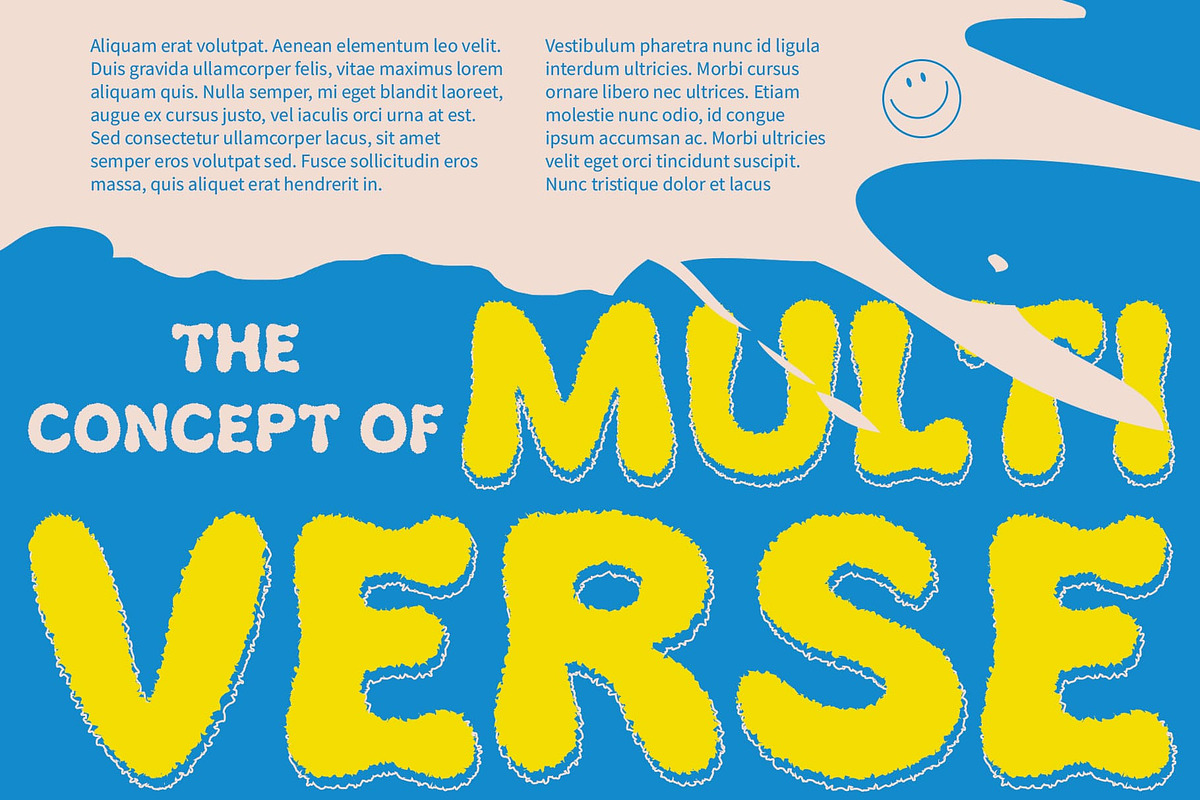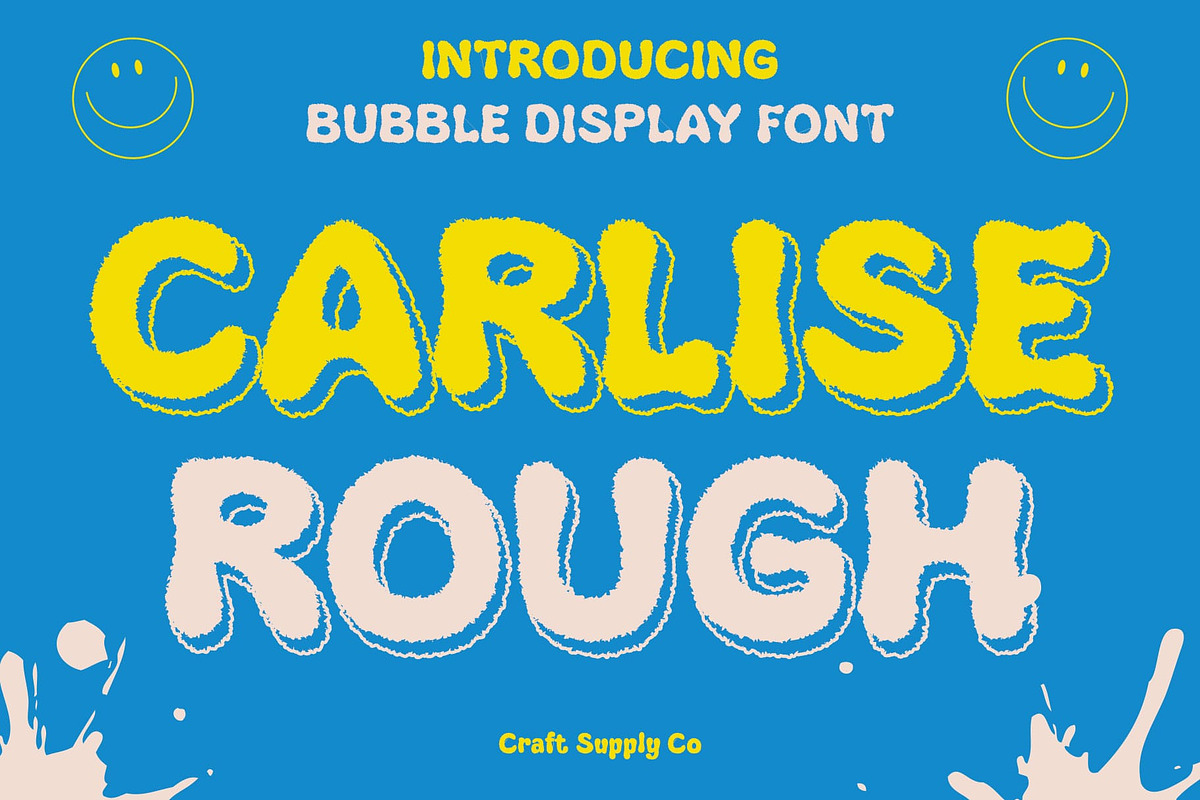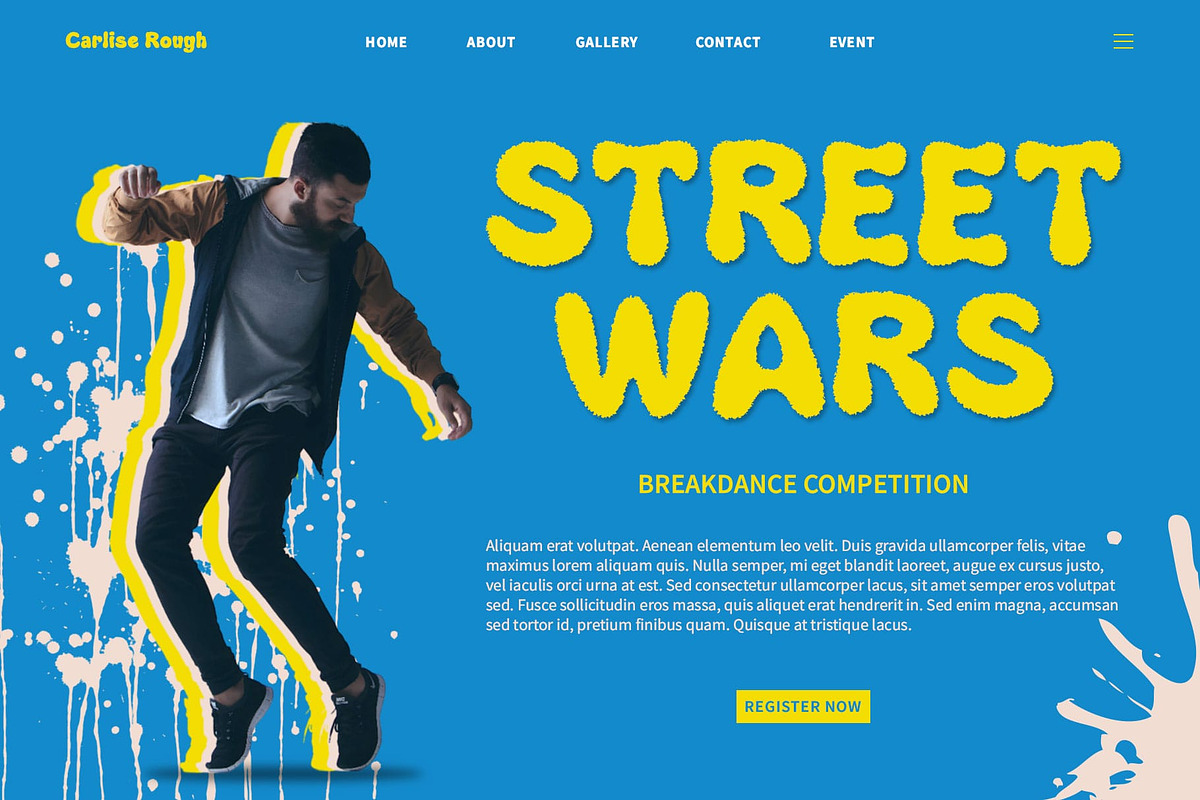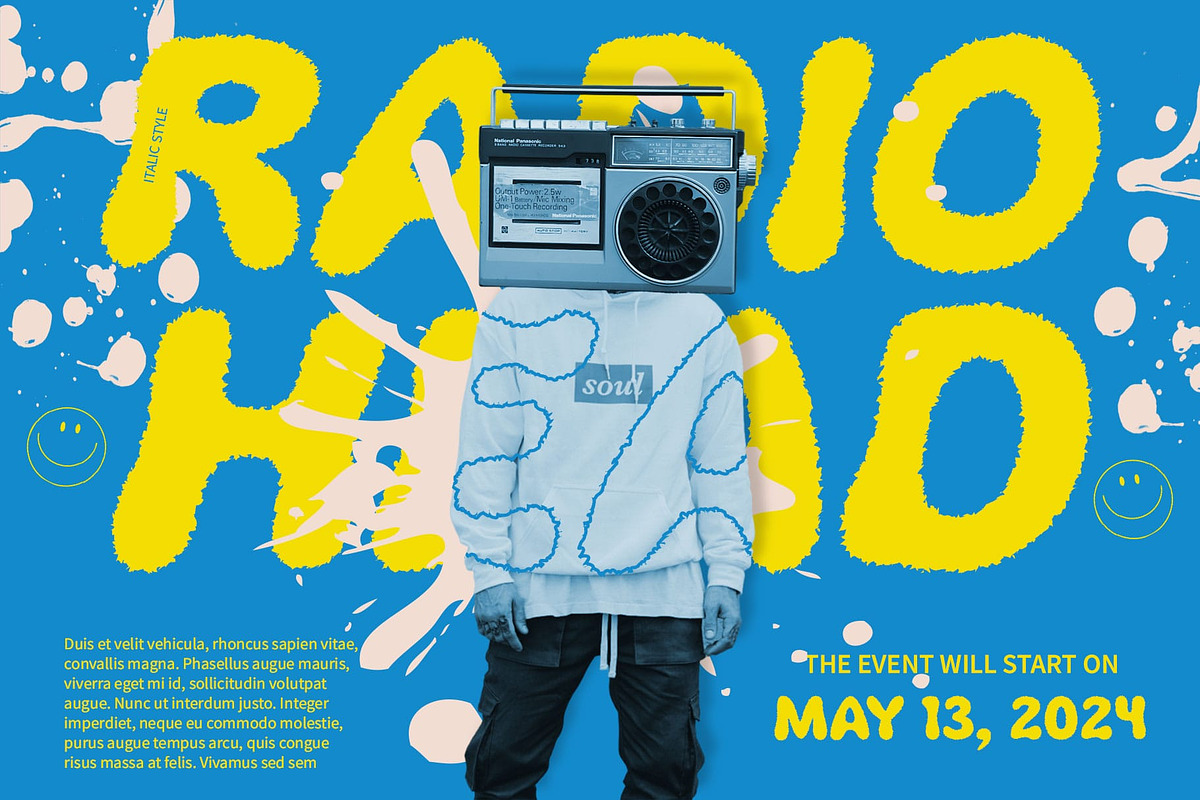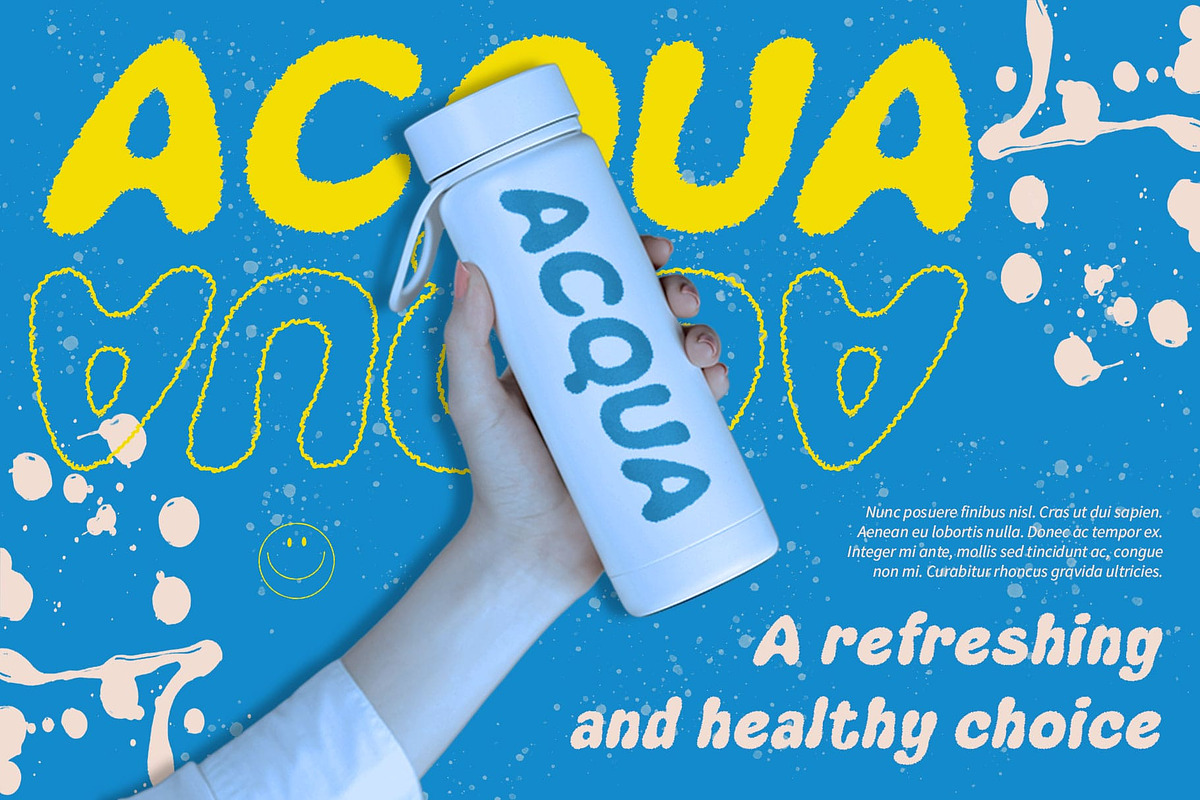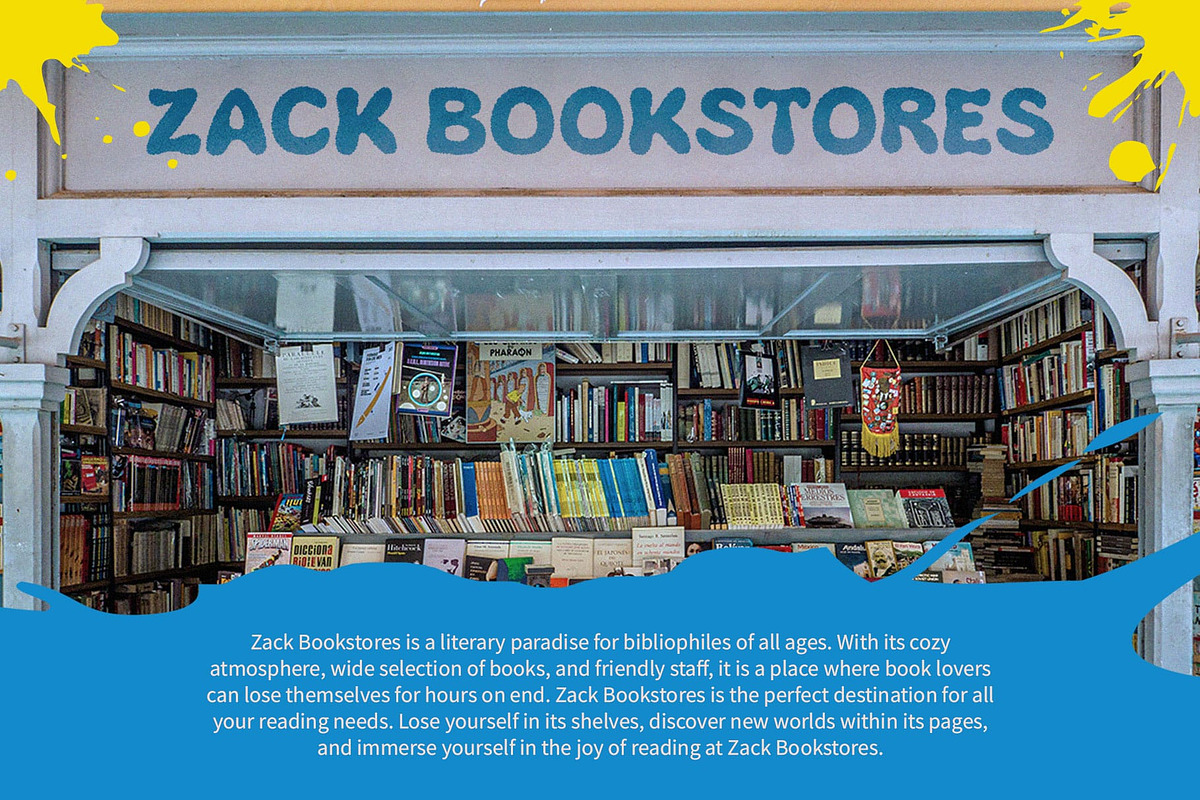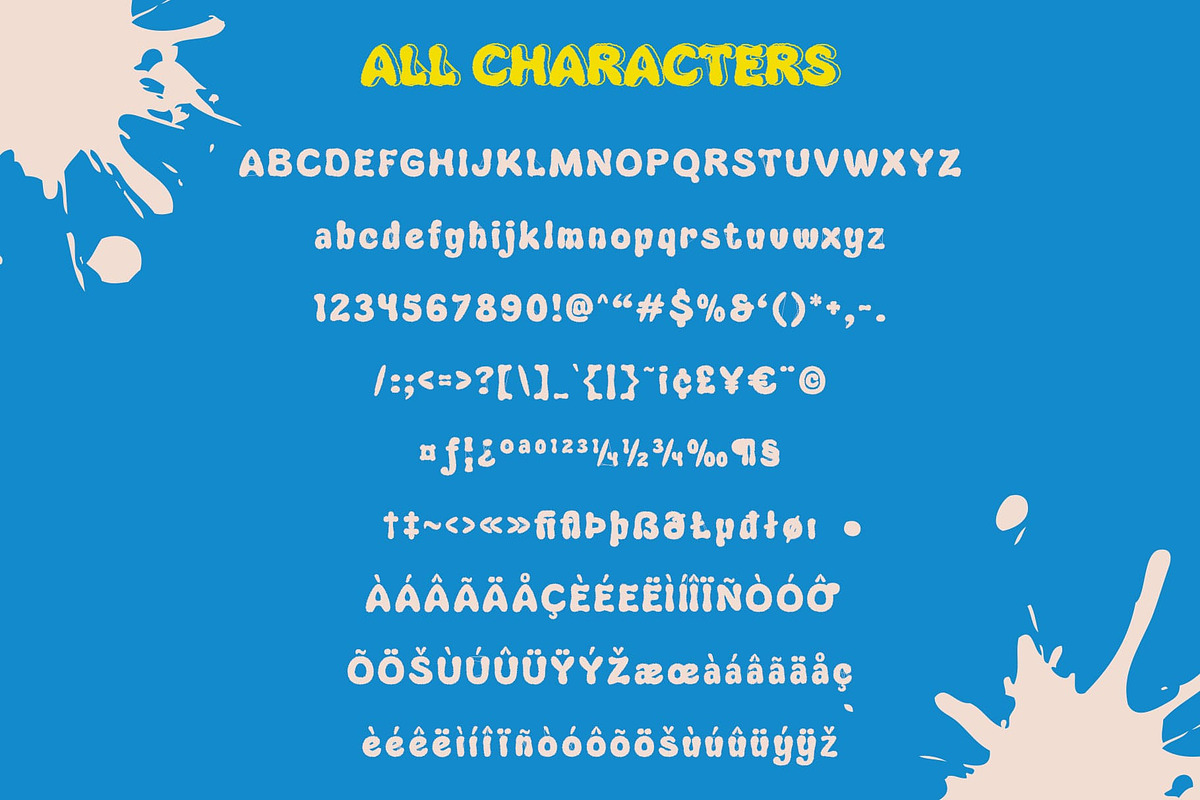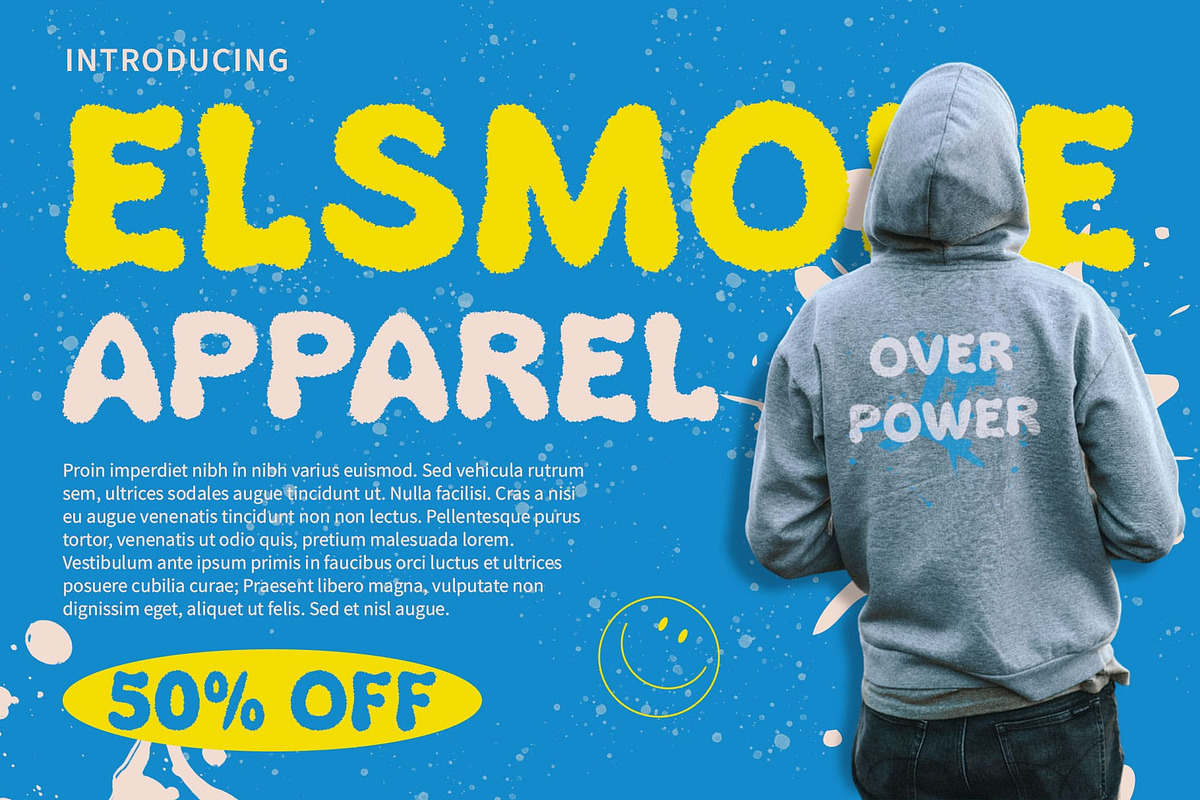
Carlise Rough
Carlise Rough: Where Charm Meets Grit
Cute Rough Display Font
Carlise Rough is a delightful display font that combines a charming aesthetic with a rugged edge. Perfect for creating eye-catching displays, this font adds a playful yet bold touch to your designs.
Charming Design with a Rough Twist
With its cute design and rough texture, Carlise Rough offers a unique and captivating twist on traditional display fonts. The combination of charming details and rugged edges creates a visually appealing and dynamic look, ideal for posters, invitations, and other projects that need a touch of whimsy and strength.
Perfect for Bold Displays
Whether you’re designing a poster for a whimsical event or creating packaging for a fun product, Carlise Rough is sure to stand out. Its distinctive design and rough texture make it perfect for displays that demand attention and convey a sense of playful boldness.
Versatile and Easy to Use
Despite its unique appearance, Carlise Rough is versatile and easy to use. The font works well in both large and small sizes, making it suitable for a variety of applications, from headlines and banners to logos and more. With its blend of cute charm and rough vibe, Carlise Rough adds a captivating and dynamic touch to any design.